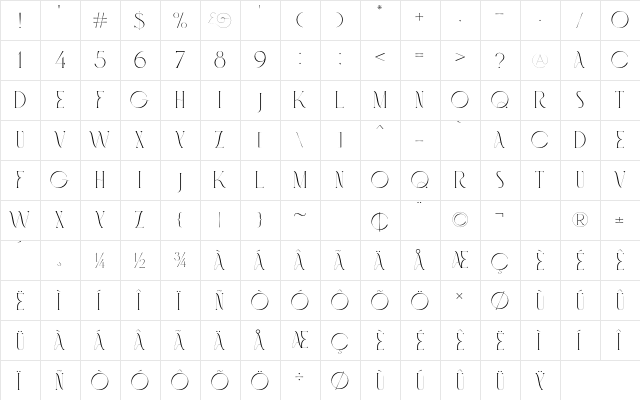
Fashionable Regular
| Foundry | 177Studio.com |
| Designer | 177Studio.com |
Design Context for Fashionable Typeface
Fashionable is a composed and adaptable typeface that performs quietly and consistently across a wide range of design contexts.